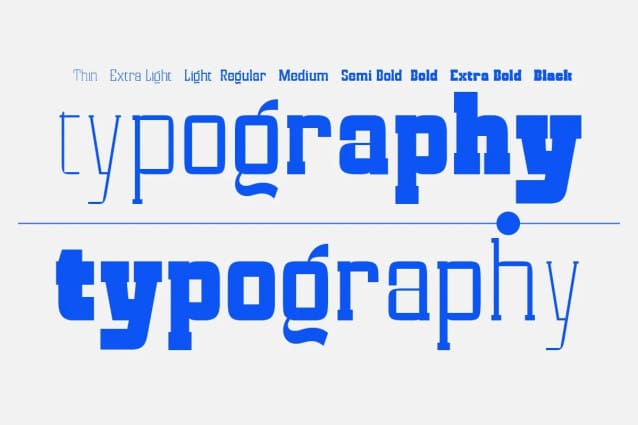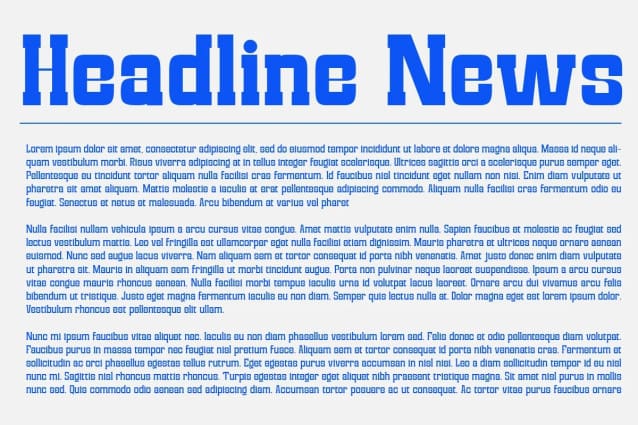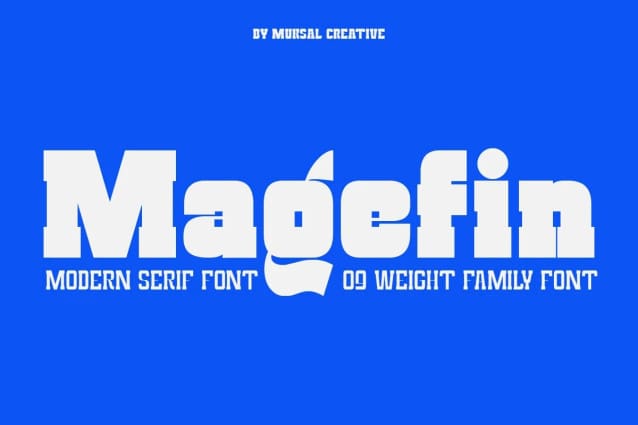
Magefin Font Family
Magefin Font Family is a unique and modern family of serif fonts. Simply Conception has 9 families Regular font, starting from the small thin to the largest Black. This typeface is versatile and can be used successfully in magazines, posters, branding, websites.